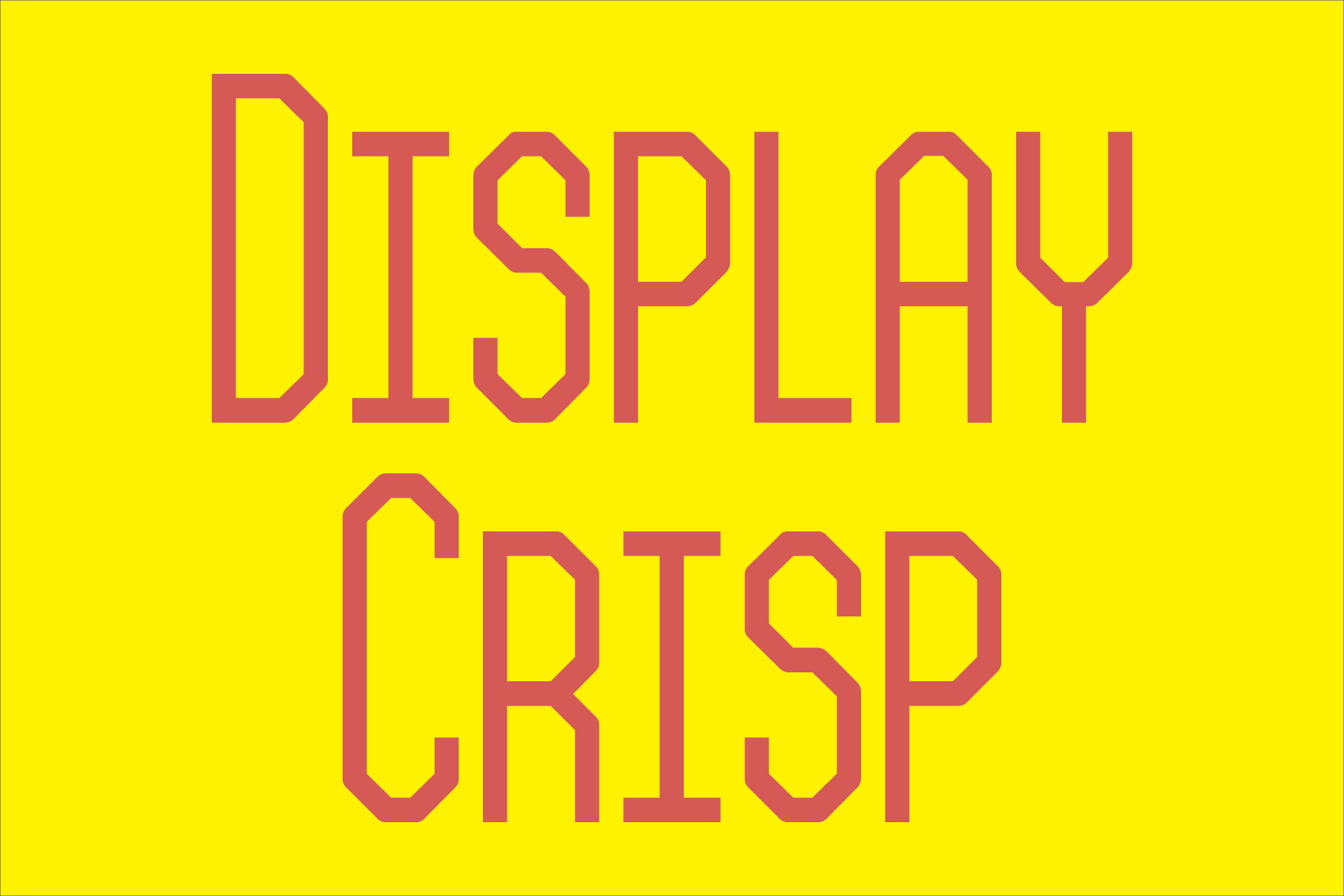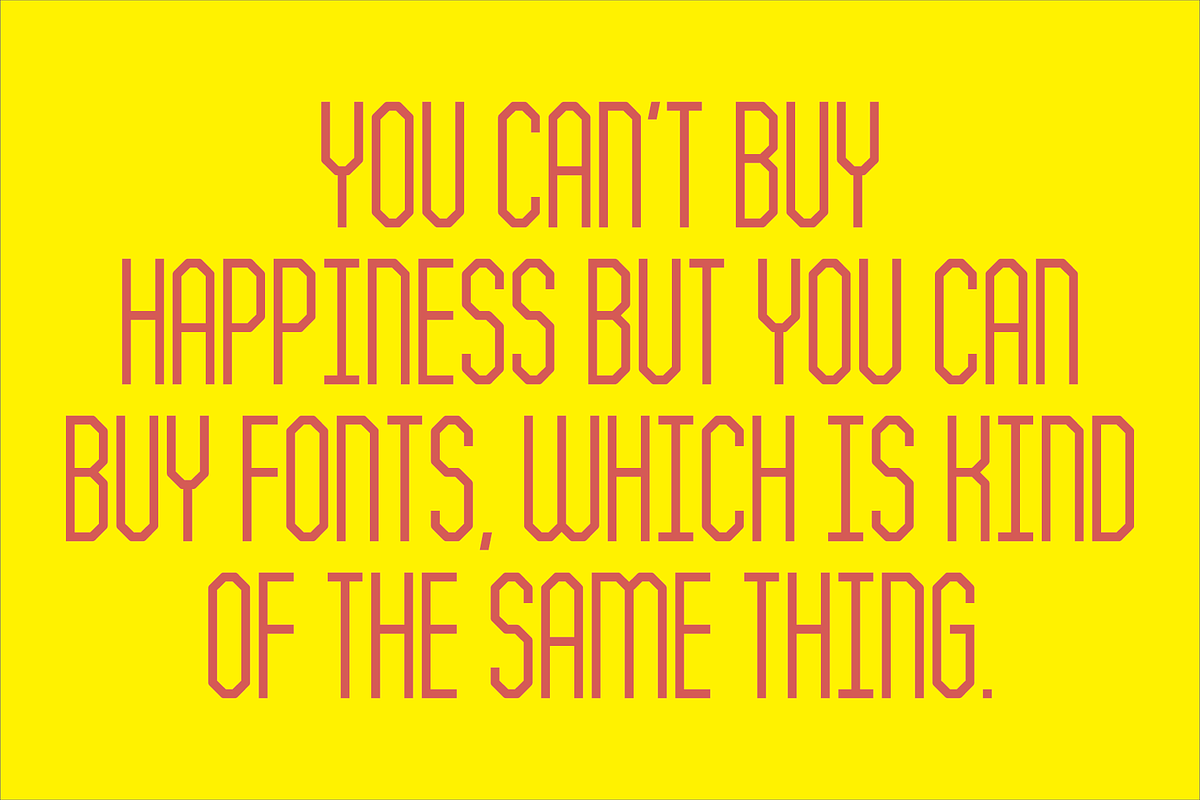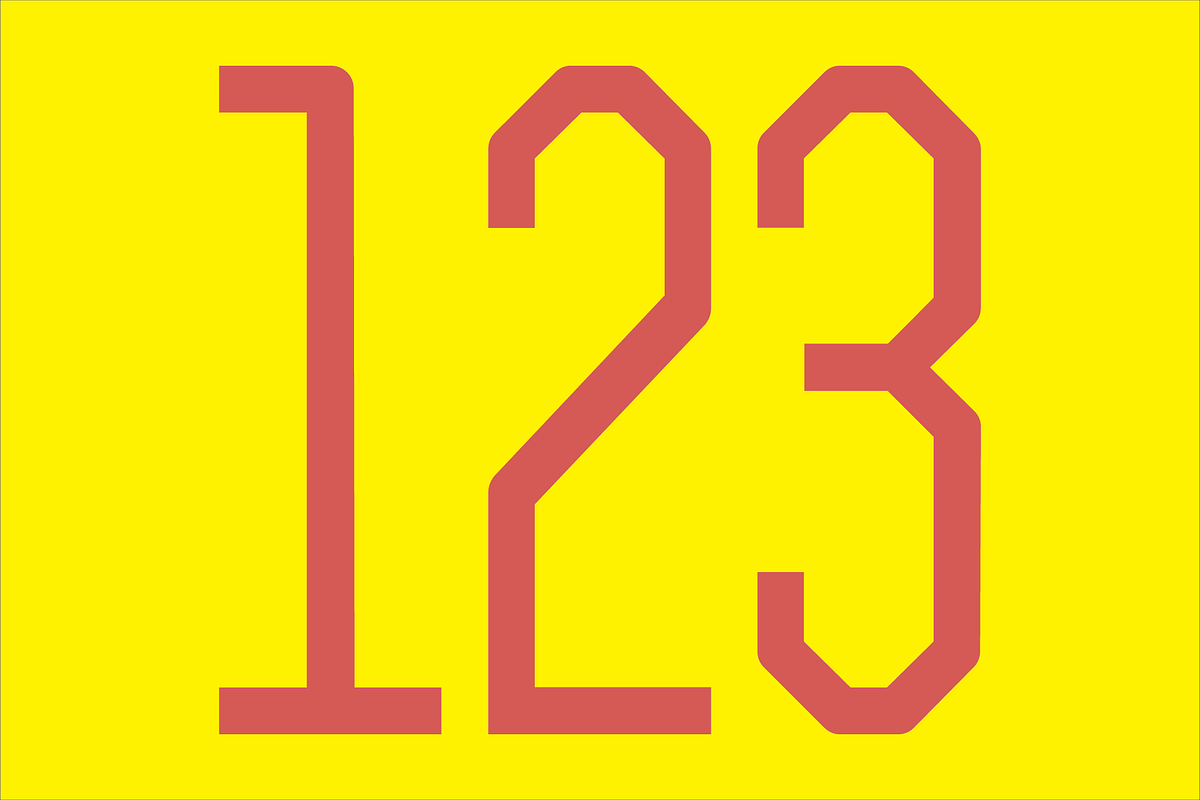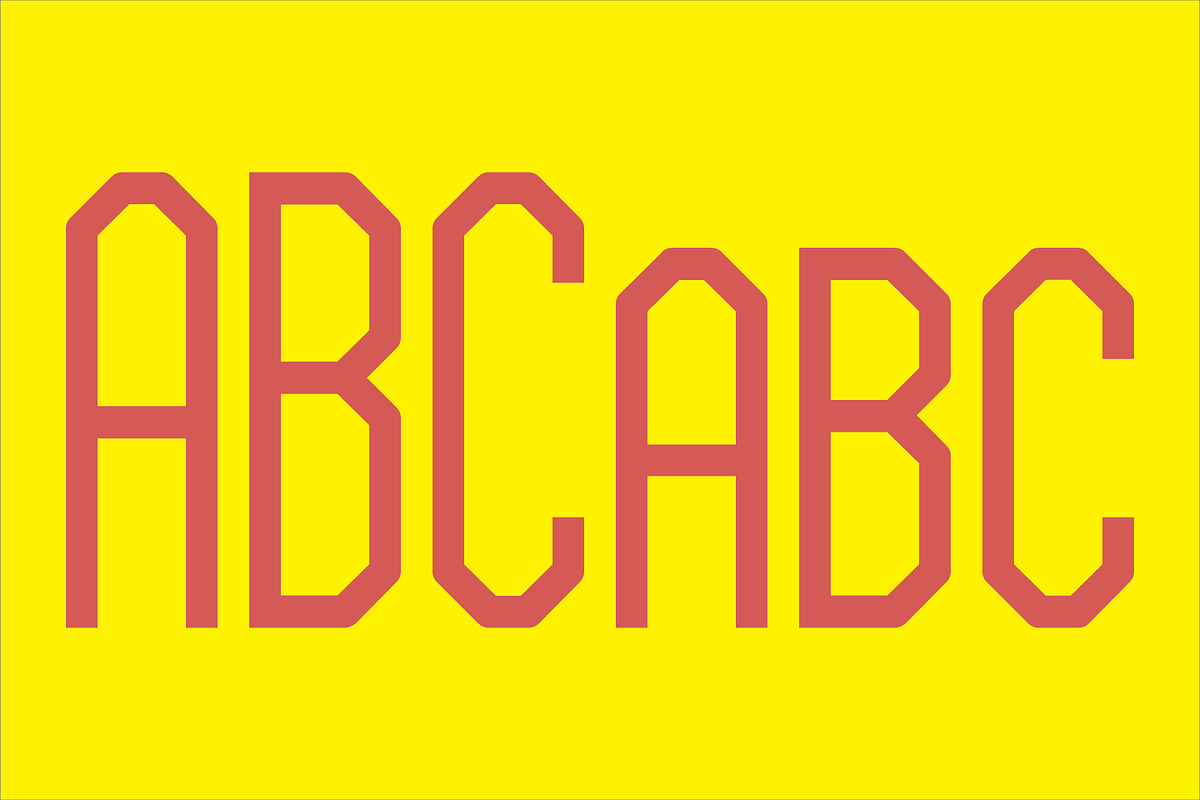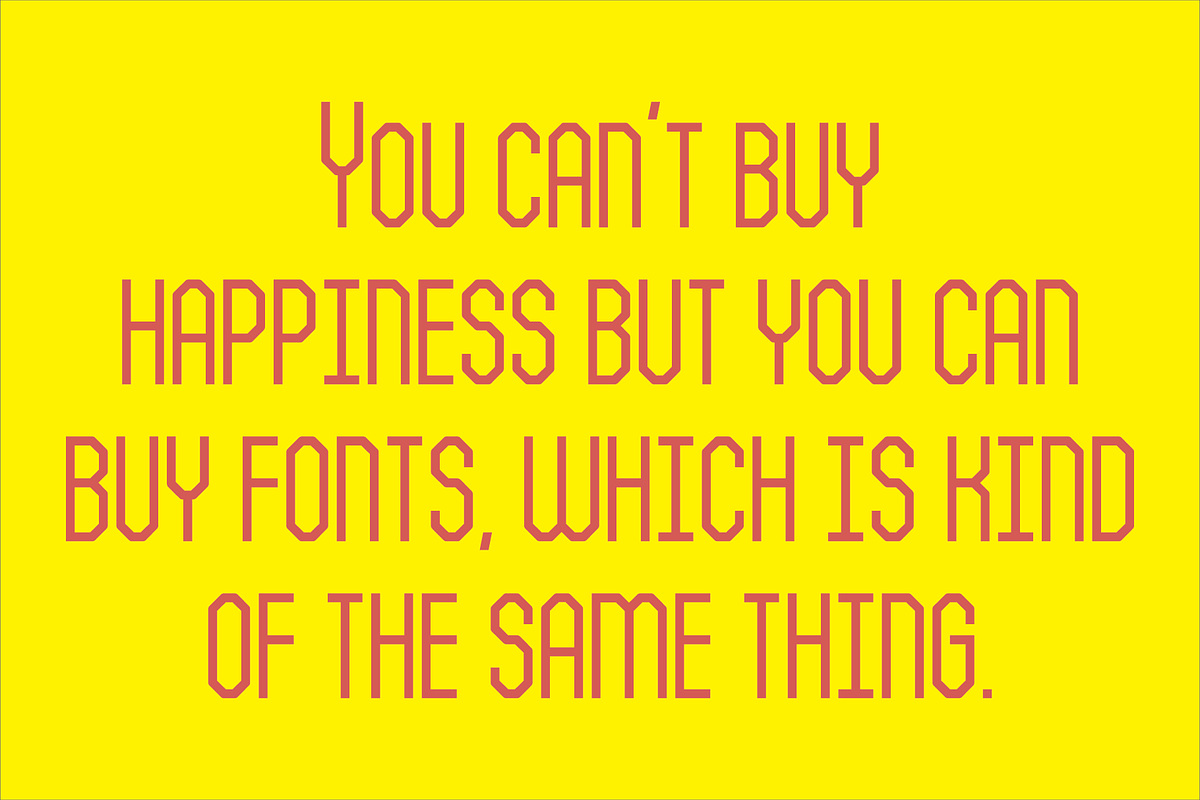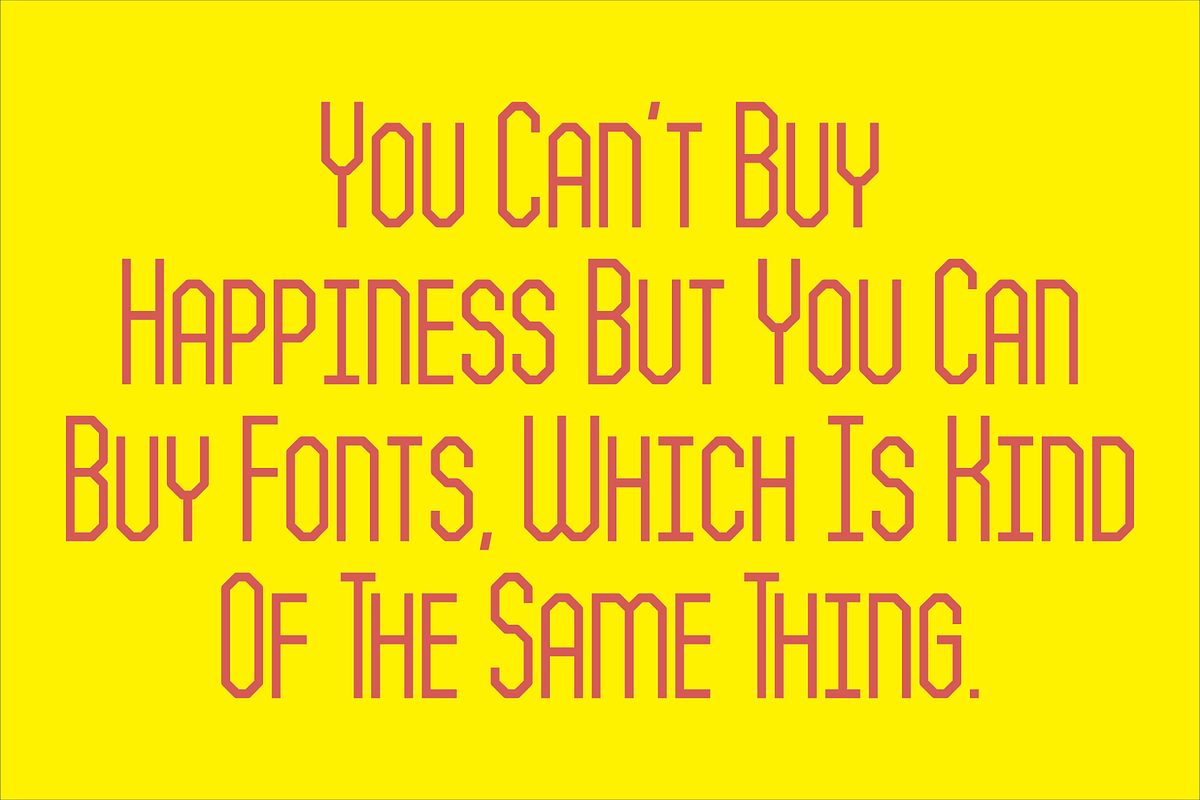
Display Crisp Font
Display Crisp is a display font not intended for text use. It was designed specifically for display, headline, logotype, branding, and similar applications. It has an uppercase and small caps alphabet, numbers, dollar, pound and euro signs, and basic punctuation.